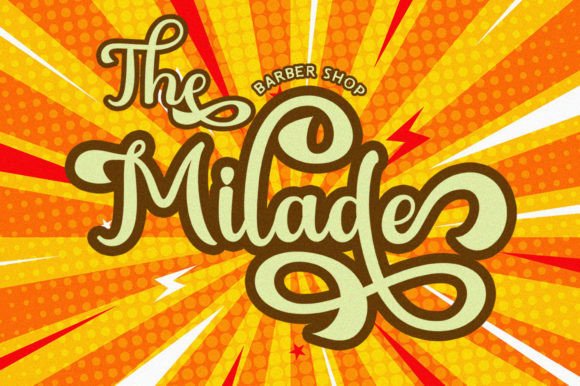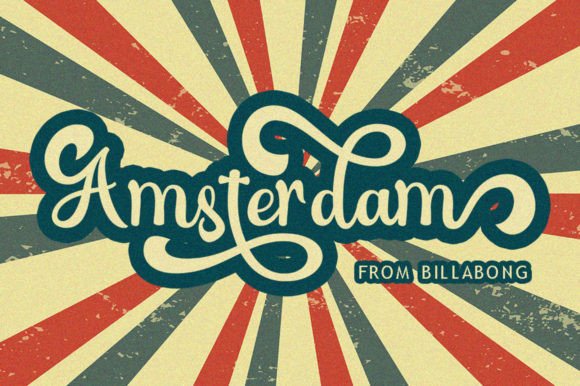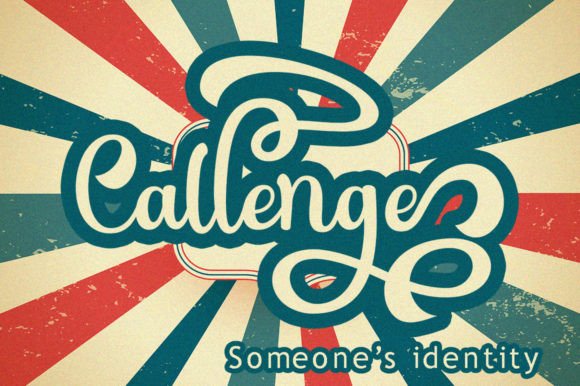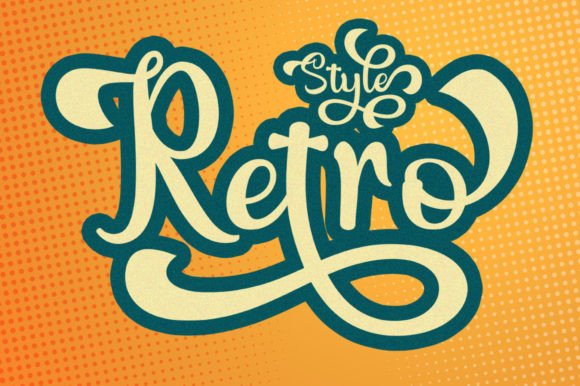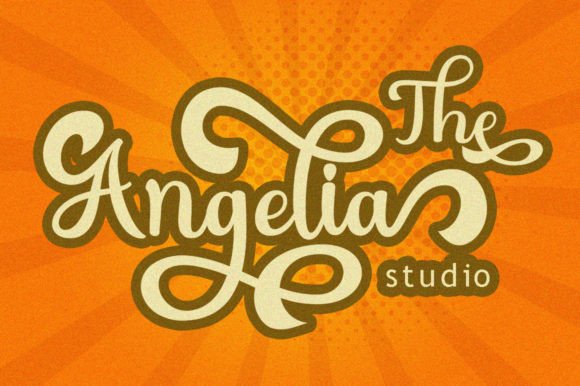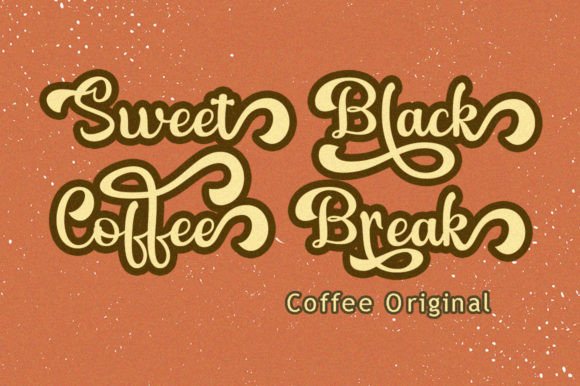
Discover the Unique Charm of Billabong Font: A Retro-Inspired Script
Are you a designer or crafter looking for a font that can add a touch of nostalgia and personality to your projects? Look no further than the Billabong Font, a beautiful script that combines retro style with hand lettering techniques. In this article, we’ll dive into the features and benefits of the Billabong Font, and explore how it can elevate your designs and crafts.
The Inspiration Behind Billabong Font
The Billabong Script is inspired by the retro style, which has seen a resurgence in popularity in recent years. The font’s creator aimed to capture the essence of classic hand lettering, while infusing it with a modern twist. The result is a unique and eye-catching script that is perfect for a wide range of applications, from branding and advertising to crafting and DIY projects.
Key Features of Billabong Font
So, what makes the Billabong Font so special? Here are just a few of its key features:
- Alternative Swash & Ligatures Characters: The Billabong Script boasts an impressive array of alternative swash and ligatures characters, allowing you to add a touch of elegance and sophistication to your designs.
- OpenType Features: This font features a range of OpenType features, including stylistic alternative, stylistic set, ligature, and swash. These features give you the flexibility to mix and match different characters and glyphs to create a truly unique look.
So, how can the Billabong Font benefit designers and crafters? Here are just a few examples:
- Add a Touch of Nostalgia: The Billabong Font’s retro-inspired design can add a touch of nostalgia and warmth to your projects, making them more engaging and memorable.
- Stand Out from the Crowd: With its unique blend of hand lettering and retro style, the Billabong Font can help your designs and crafts stand out from the crowd and grab attention.
- Versatility: The Billabong Font is versatile and can be used for a wide range of applications, from branding and advertising to crafting and DIY projects.
Tips for Using Billabong Font
Here are a few tips for getting the most out of the Billabong Font:
- Experiment with Different Sizes and Styles: Don’t be afraid to experiment with different sizes and styles to find the perfect look for your project.
- Combine with Other Fonts: The Billabong Font pairs well with other fonts, so don’t be afraid to combine it with other scripts or sans serifs to create a unique look.
- Use for Headings and Titles: The Billabong Font is perfect for headings and titles, where its elegant and cursive design can really shine.
| Font Name | Billabong Font |
| Author | TM Type |
In conclusion, the Billabong Font is a unique and versatile script that can add a touch of nostalgia and personality to your designs and crafts. With its retro-inspired design, alternative swash and ligatures characters, and OpenType features, this font is perfect for designers and crafters looking to stand out from the crowd. So why not give it a try and see the difference it can make in your next project?